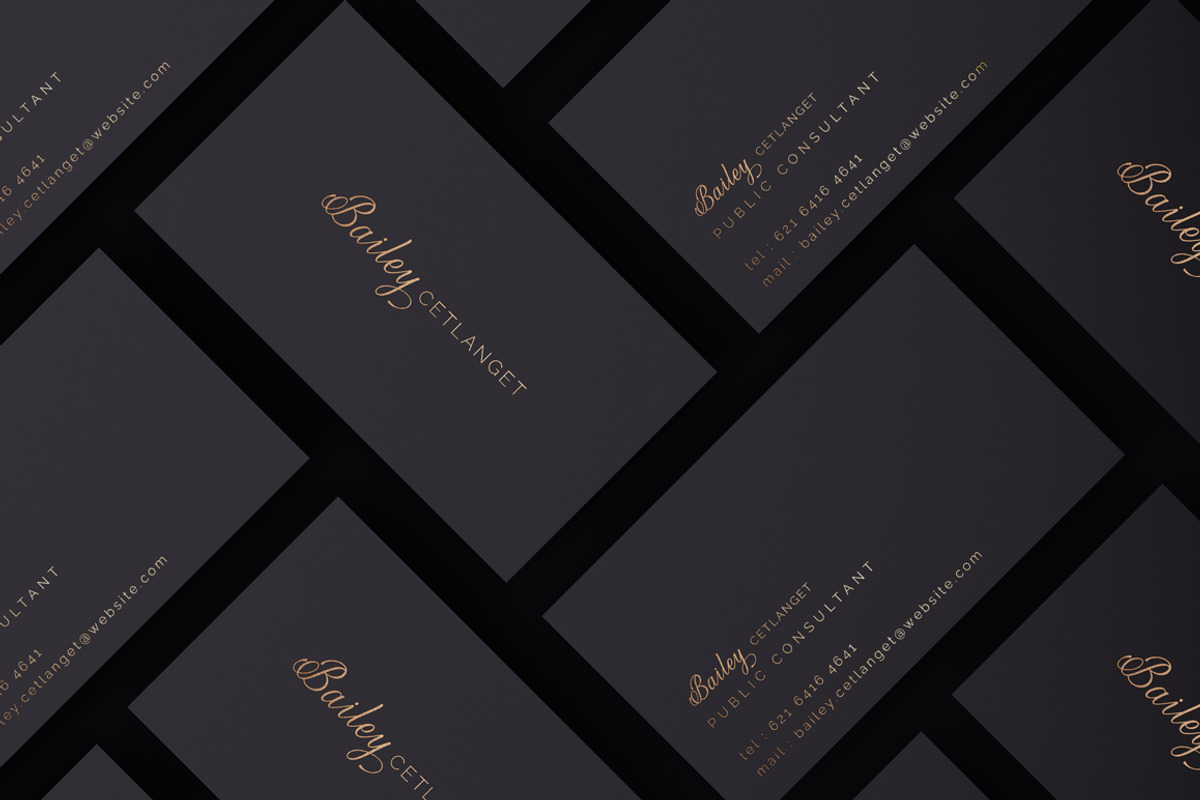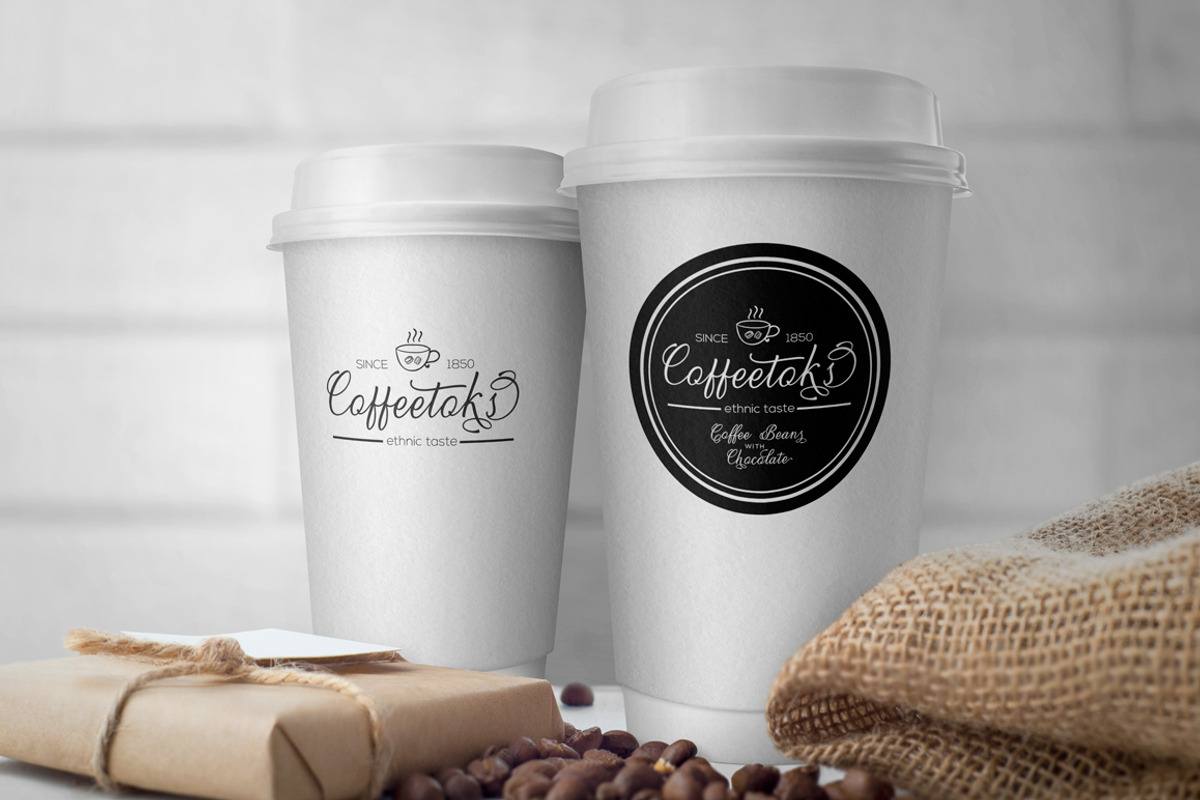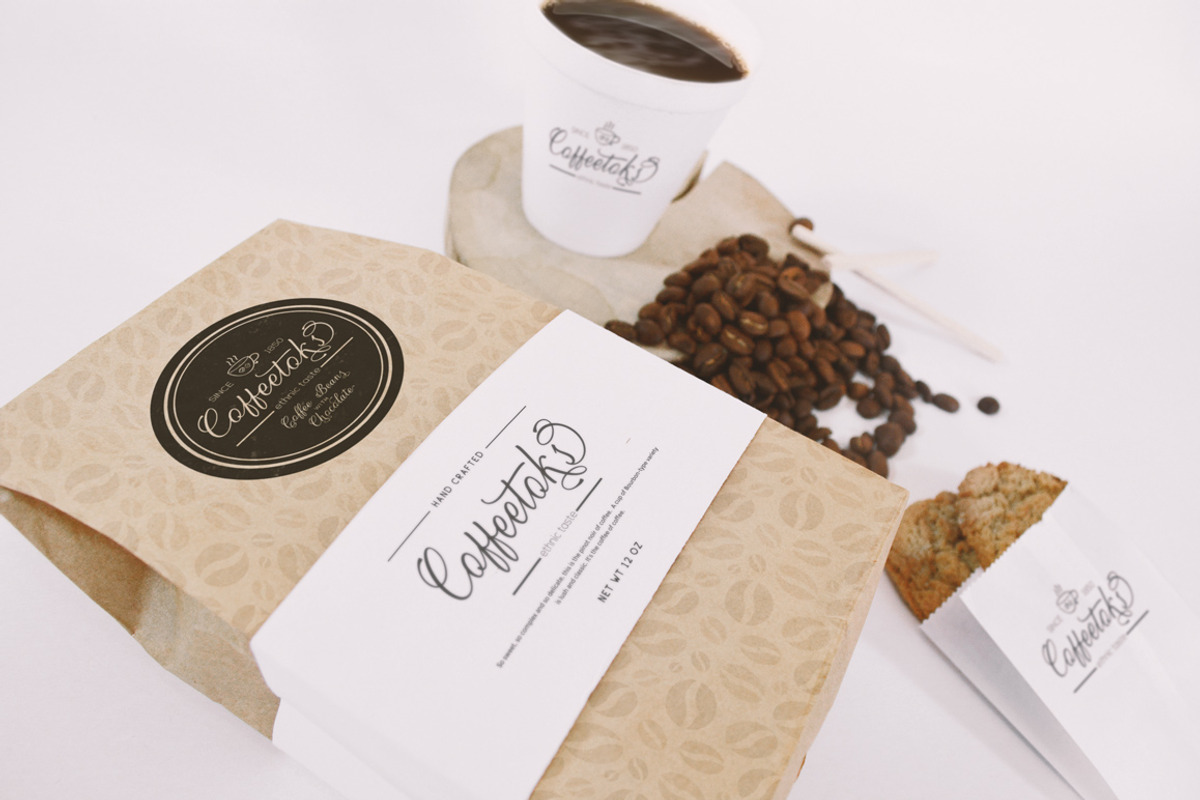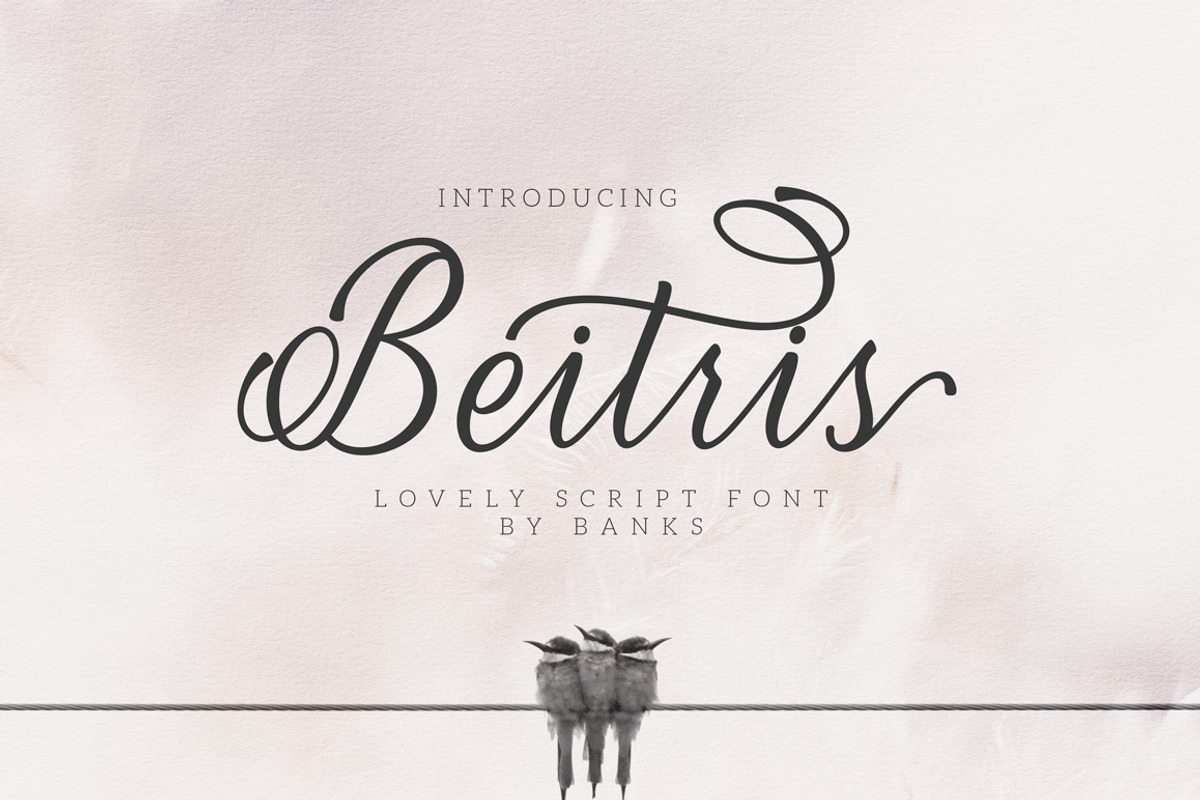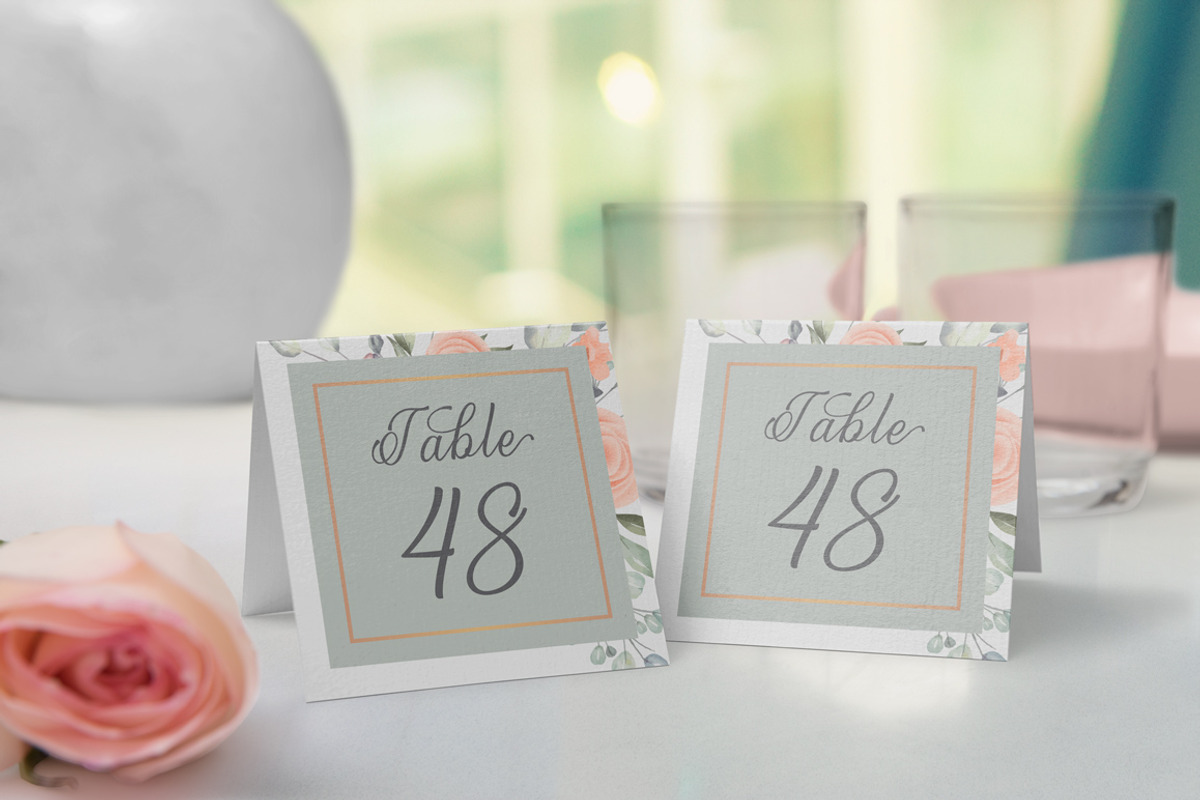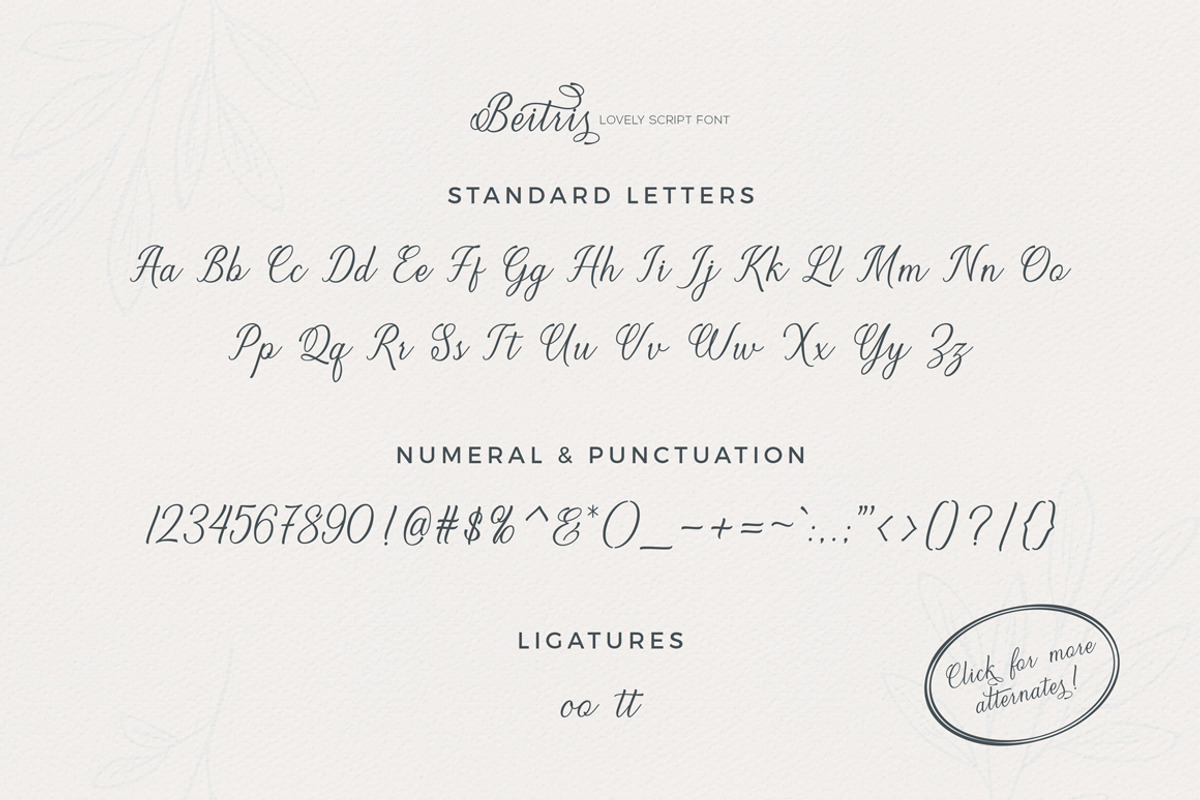
Beitris Script
Beitris is a beautiful and elegant script font. Perfect for designing branding, blog logo, website logo, print ads, book covers, film covers, apparel, cards, logos, posters, etc. Opentype features gives you more alternatives in designing
Beitris includes several Ligatures, Stylistic Alternates, Stylistic Sets ( These alternates are accessible by turning on 'Stylistic Alternates' in Photoshop, or via any software with a glyph panel, e.g. Adobe Illustrator, Photoshop CC ), and has given PUA encoded (specially coded fonts).
- Standard ligatures
- Stylistic sets